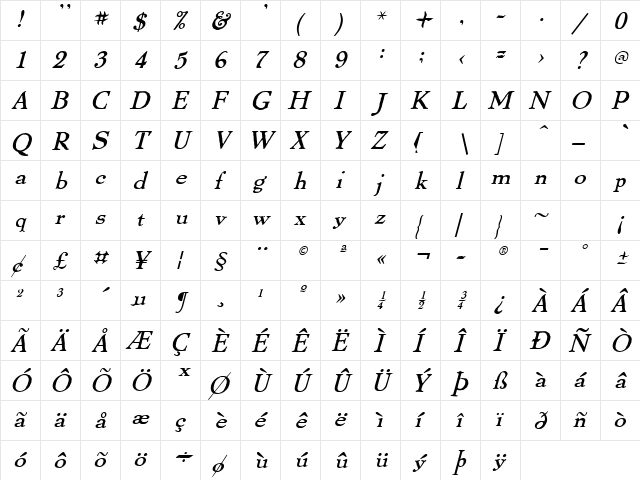
ThomasPaine Regular
Design Context for ThomasPaine Typeface
ThomasPaine offers clean, dependable letterforms without strong stylistic allegiance, making it a practical choice for designers who need flexibility.